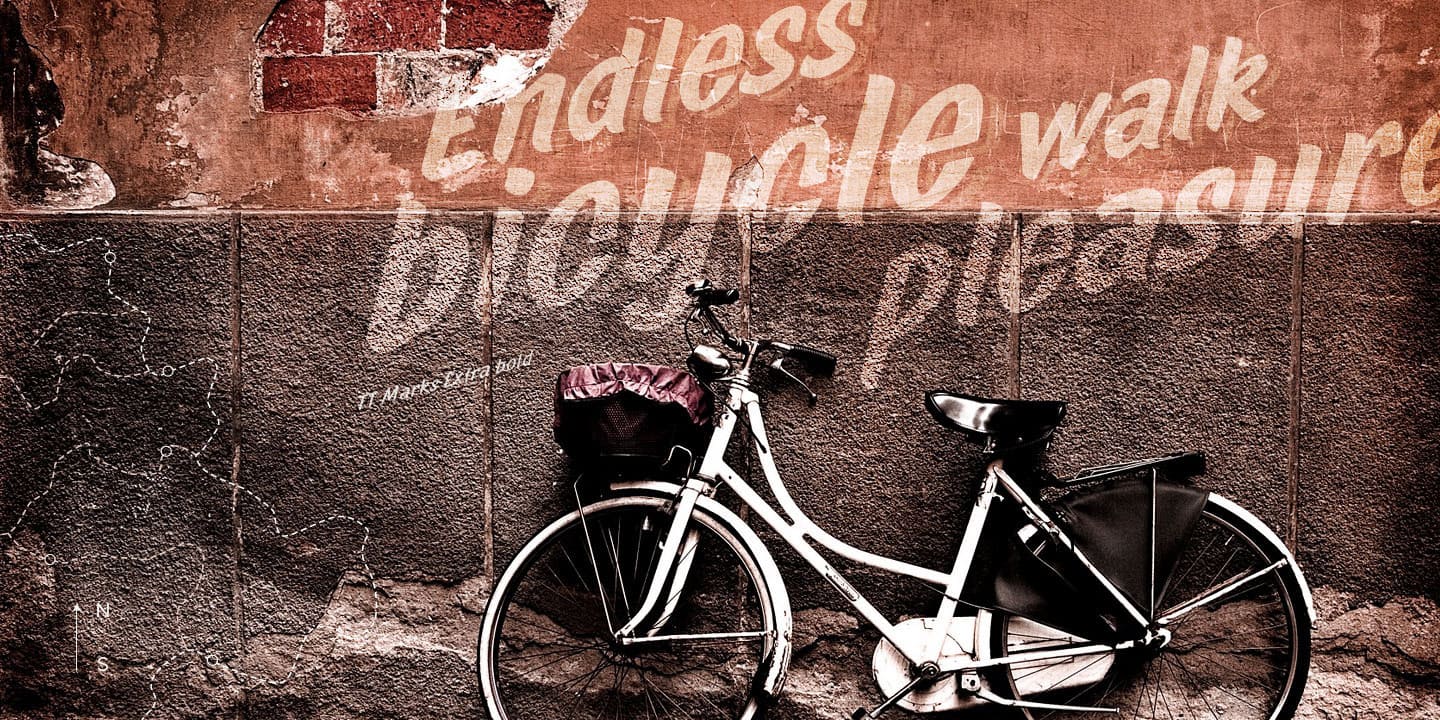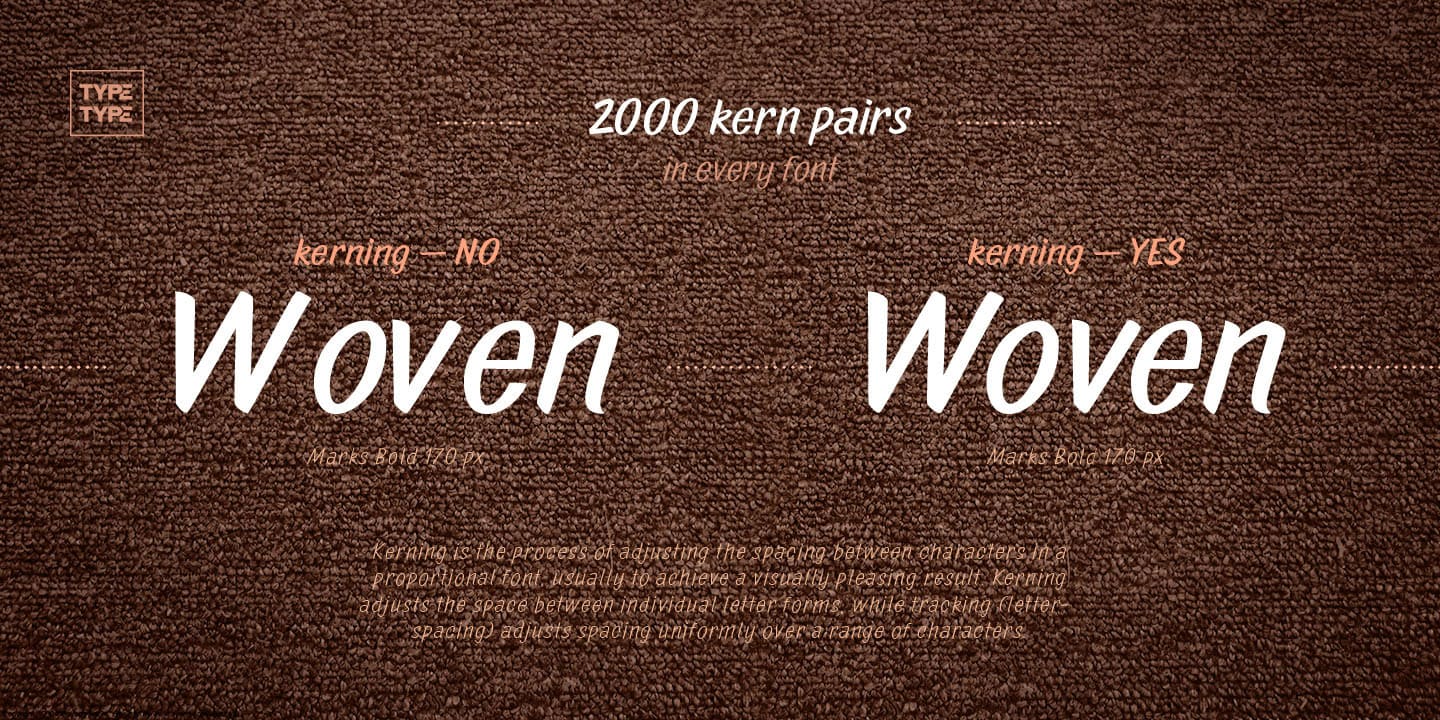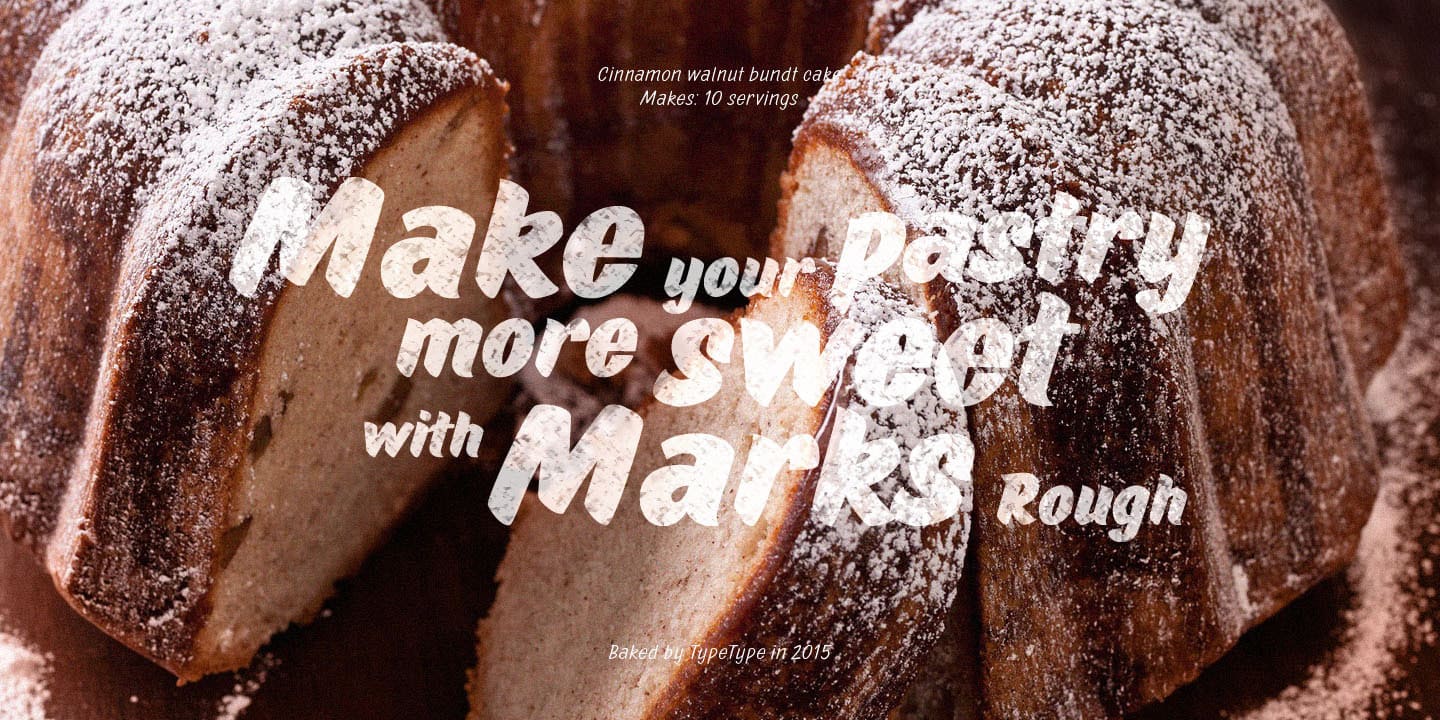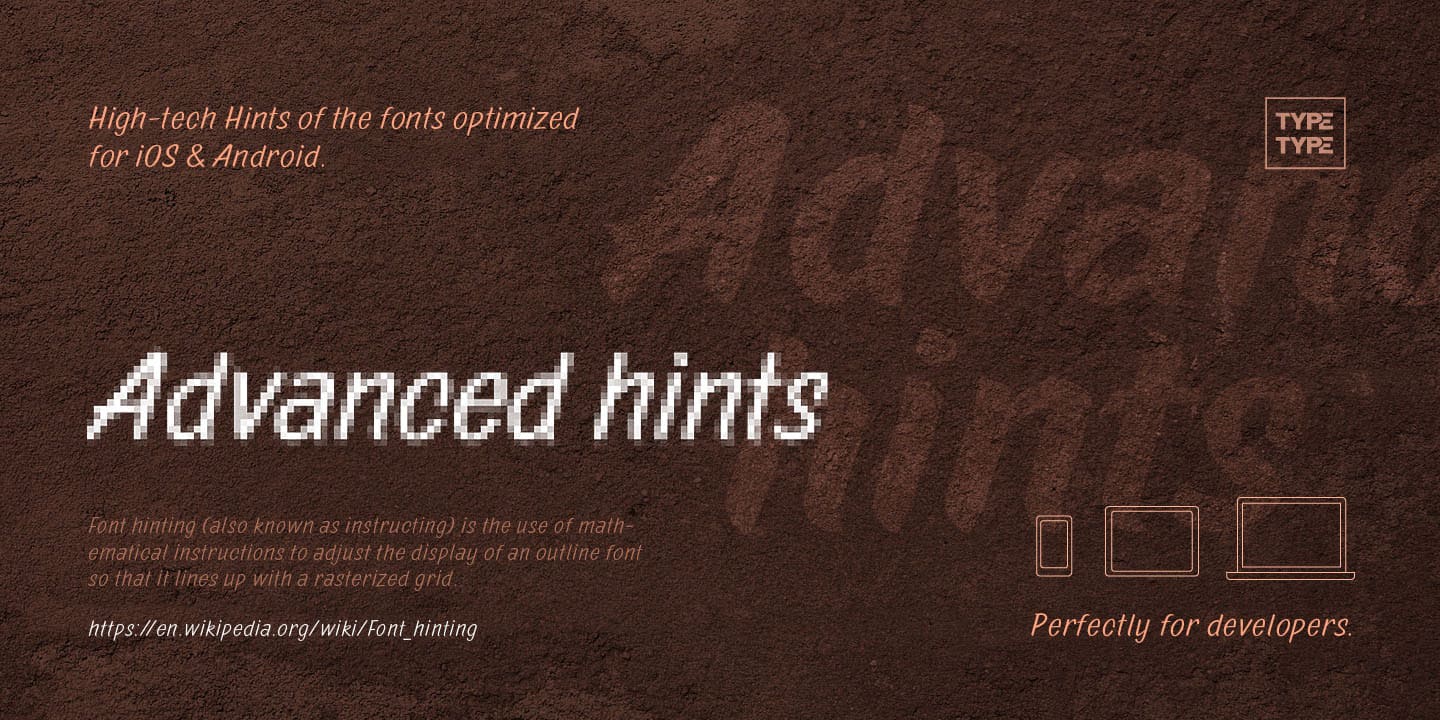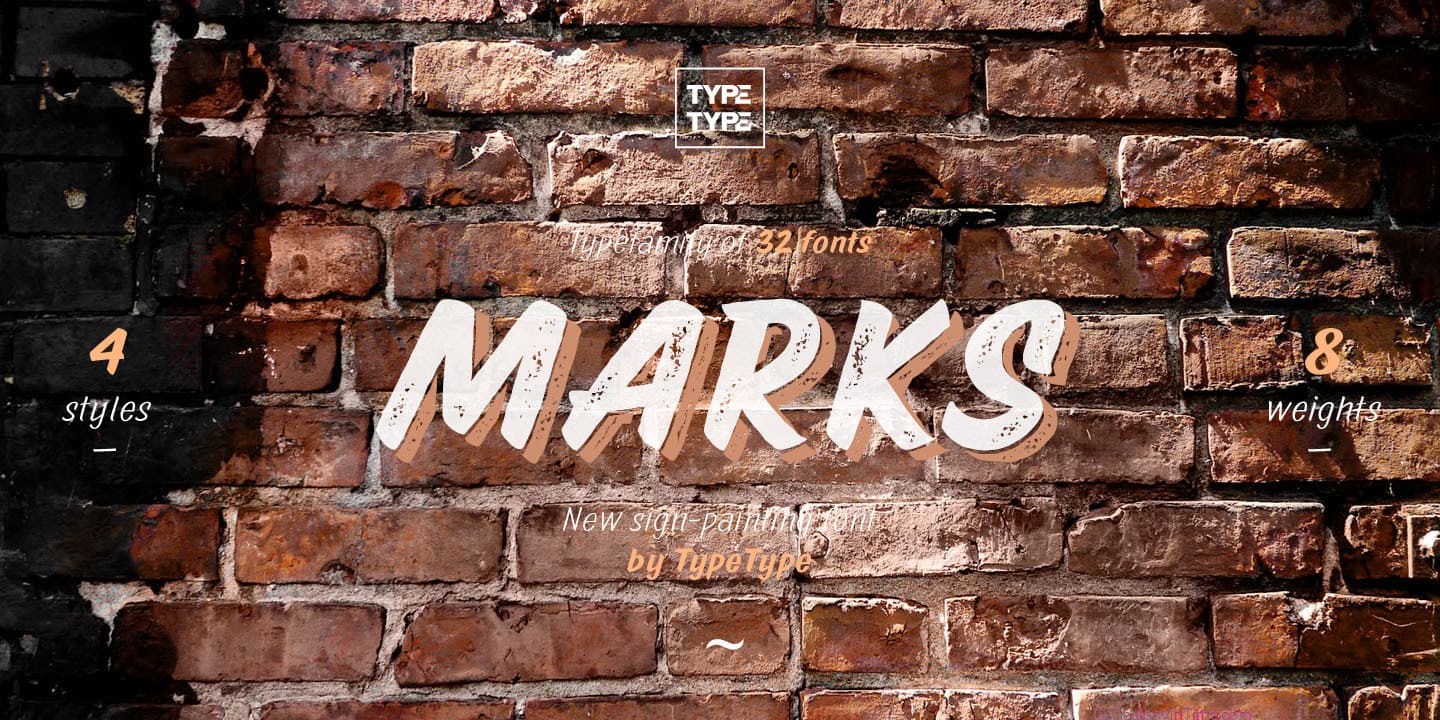
TT Marks Family (32 fonts)
Marks was created in the style of a traditional American Sign Painting. Sign Painting is the art of painting on buildings, billboards and signage for the purpose of announcing or advertising of products, services and activities.
Fontfamily Marks consists of 32 fonts and has 8 different weights: Thin, ExtraLight, Light, Regular, Medium, Bold, ExtraBold, Black.
Marks would look great on all modern information media, ranging from small labels to entire text blocks. Ideal for use in iOS & Android and websites.